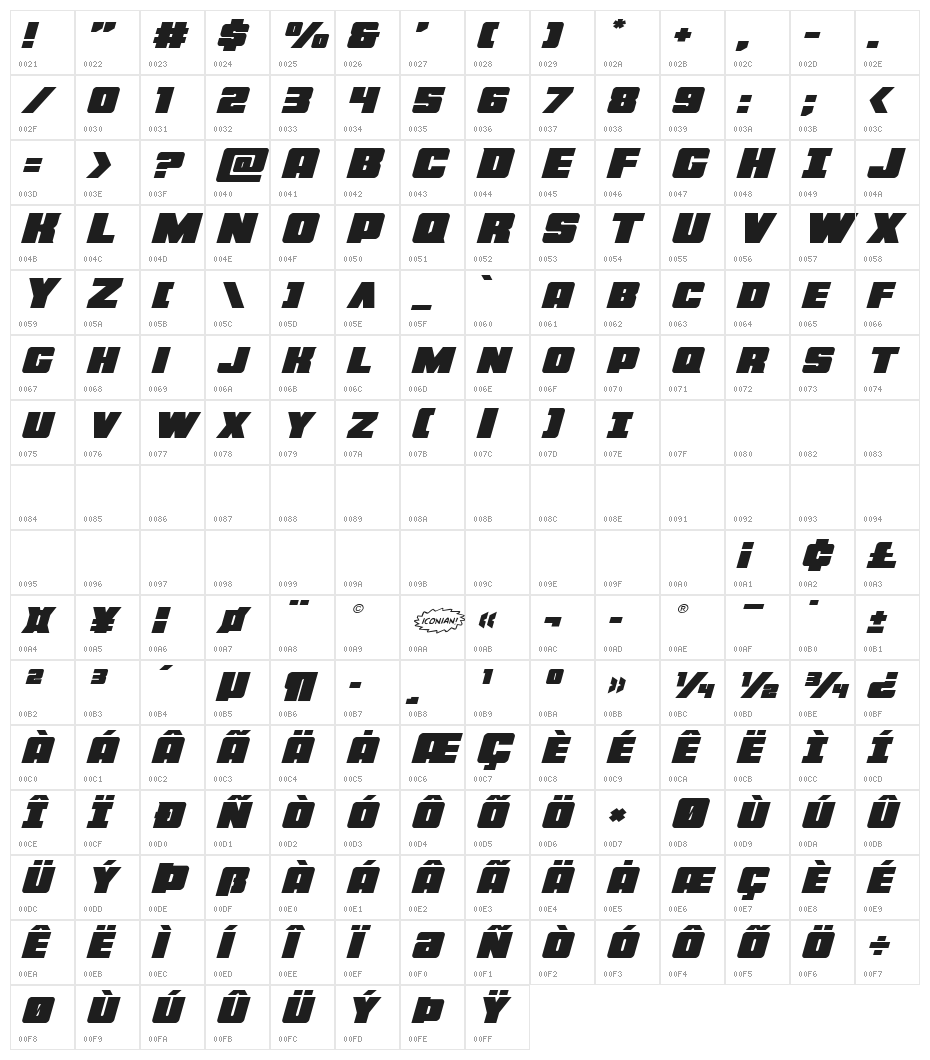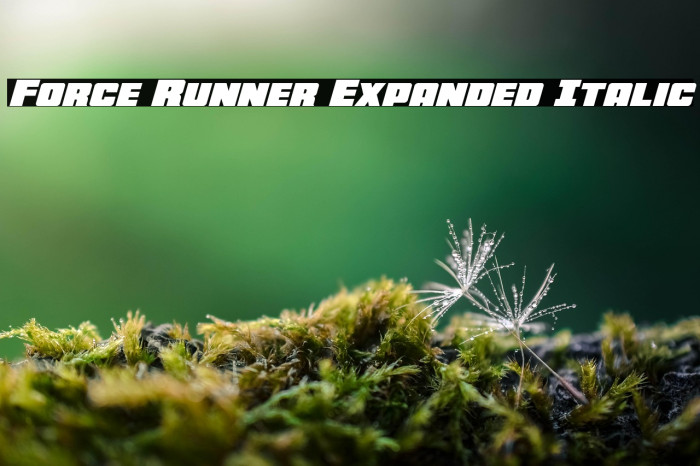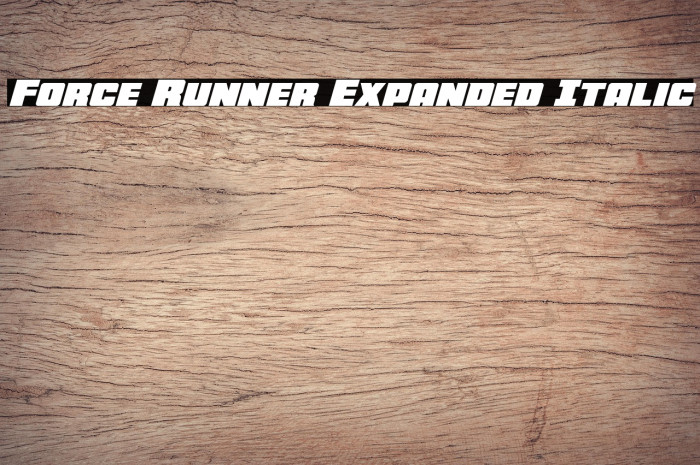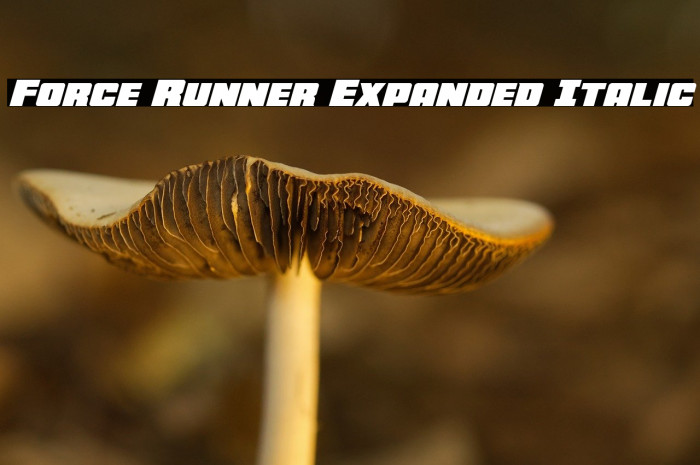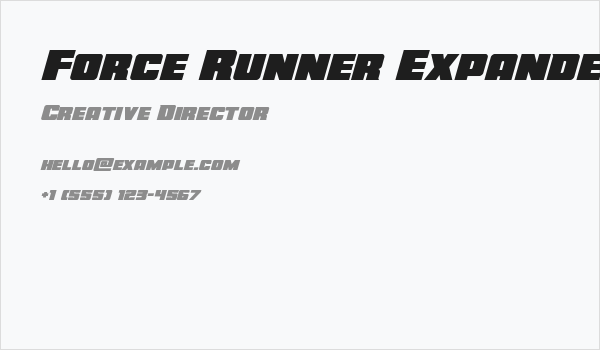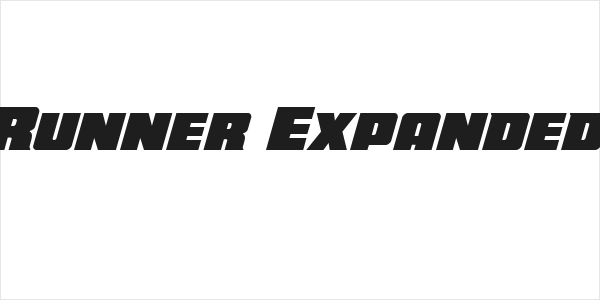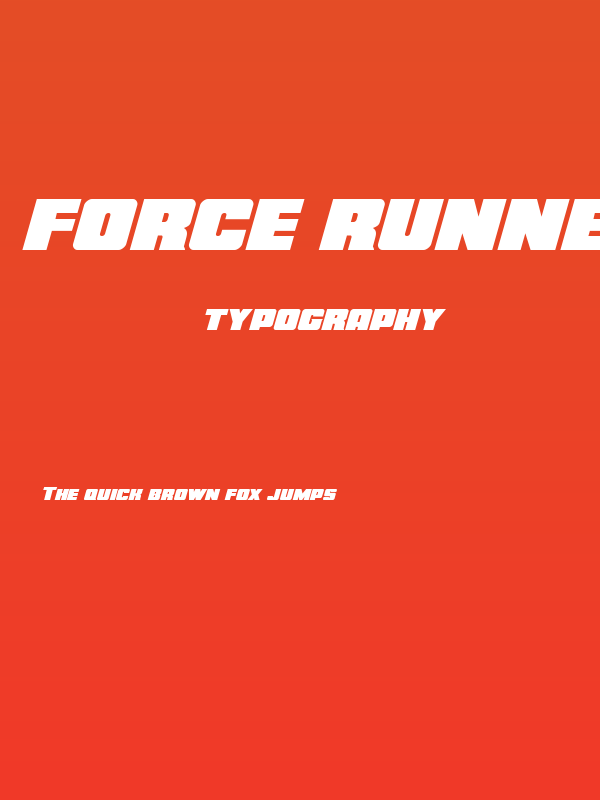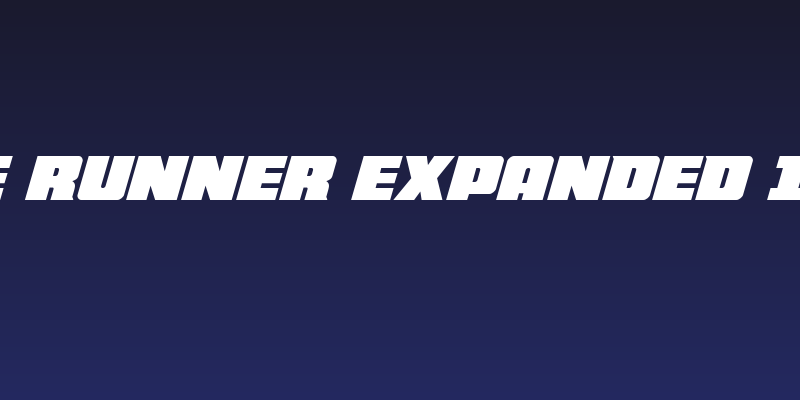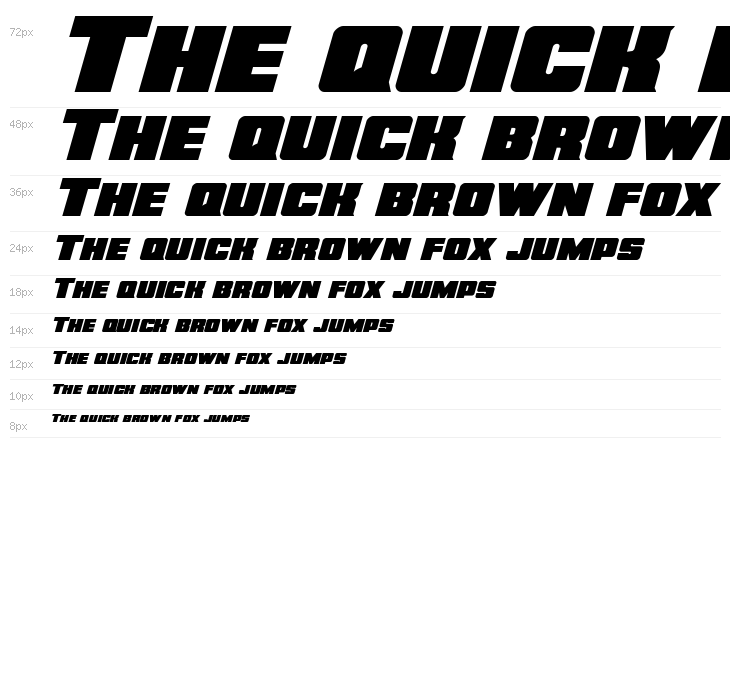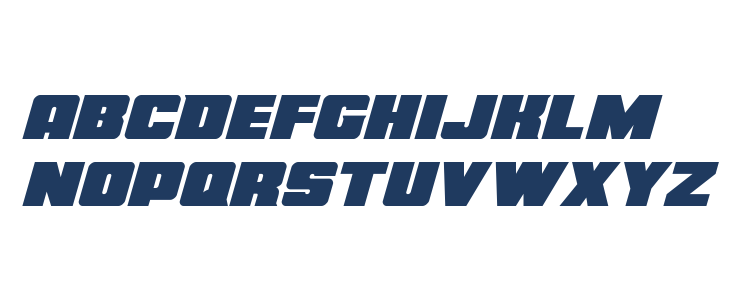
Force Runner Expanded Italic Font
Force Runner Expanded Italic Description
This font features a bold and dynamic style with an italic slant, giving it a sense of motion and energy. The characters are expanded, providing a wide stance that enhances readability while maintaining a strong visual impact. The design is modern and sleek, with a uniform stroke width that contributes to its bold appearance. The uppercase and lowercase letters are consistent in style, and the numbers and special characters are designed to match the overall aesthetic. This font is ideal for projects that require a strong, impactful presence.
| Proposed Projects | Ideal for sports branding, action movie posters, dynamic advertisements, and any project needing a bold, energetic typeface. |